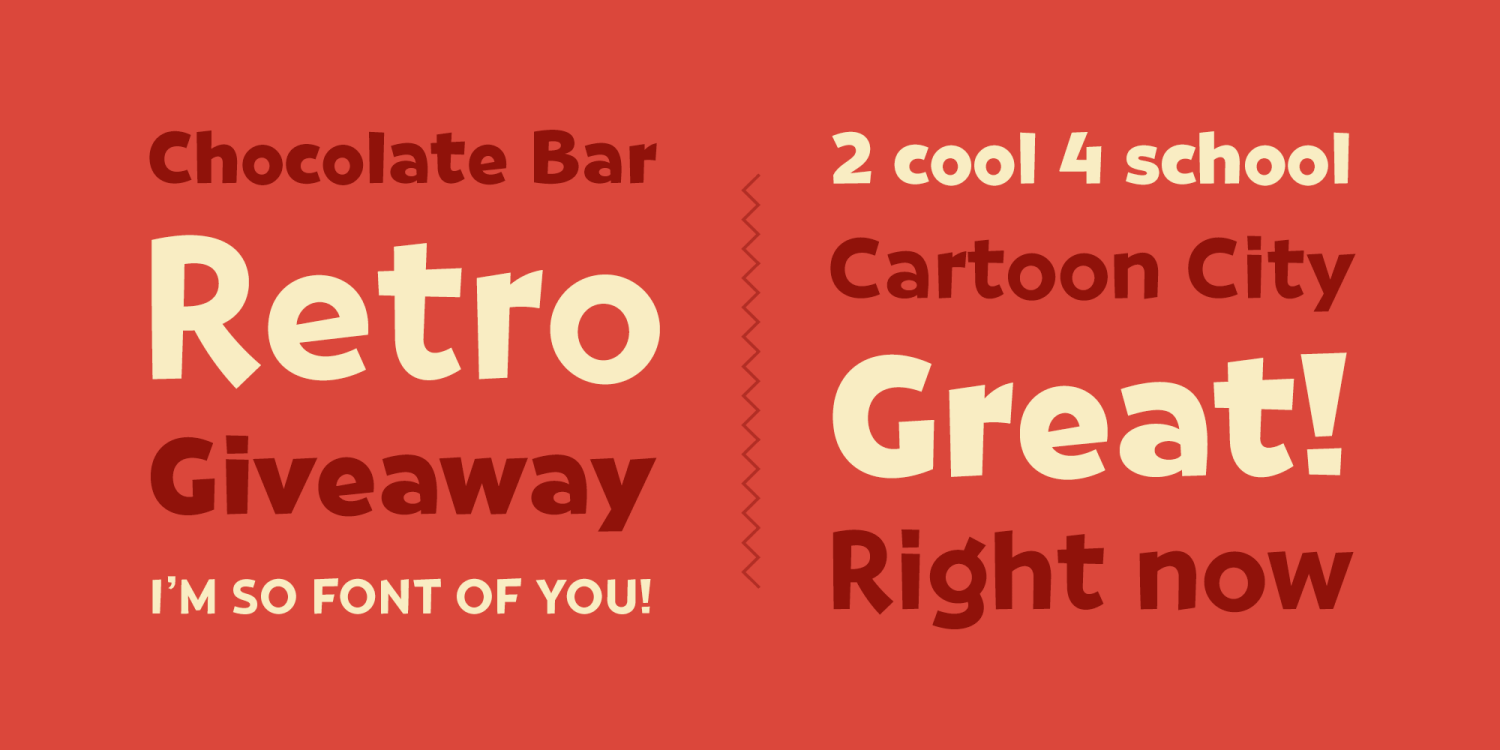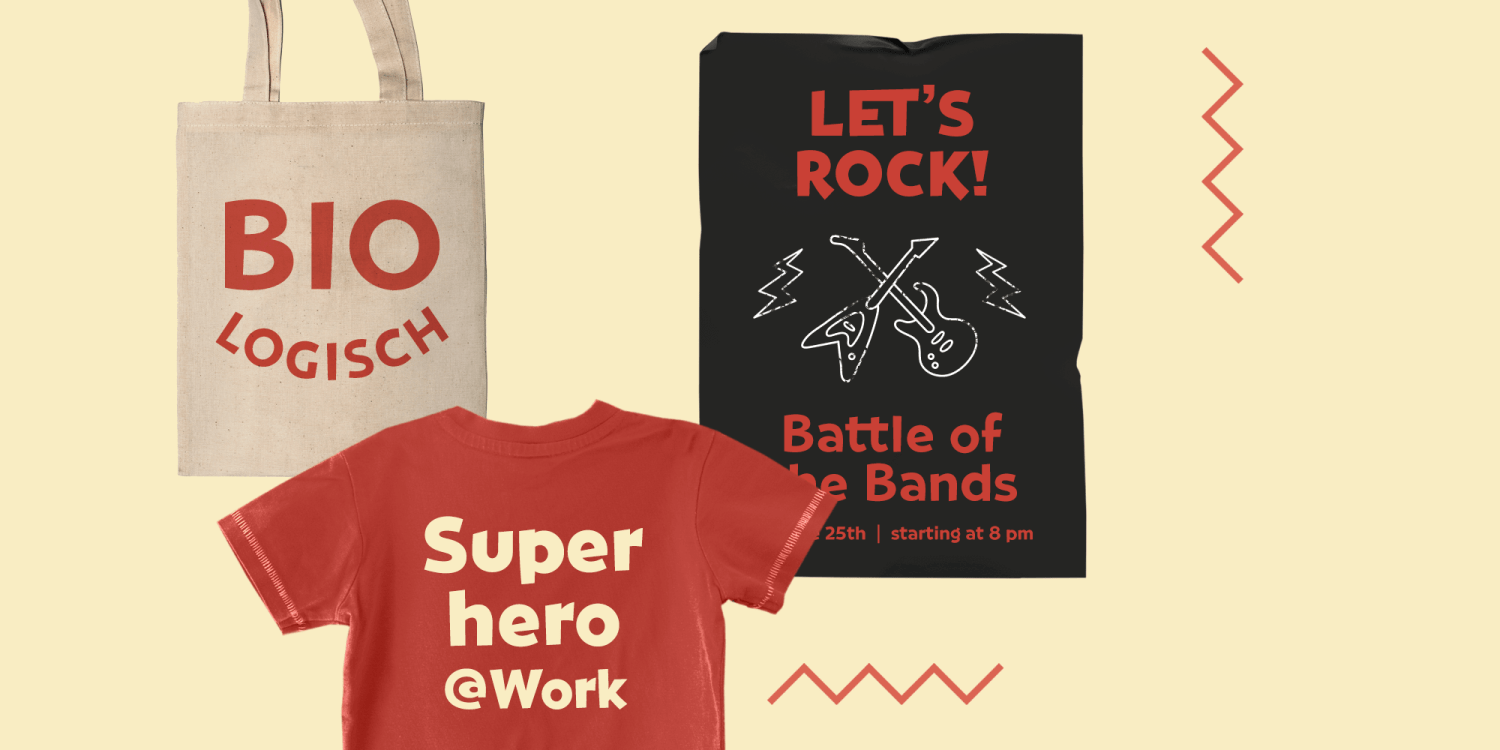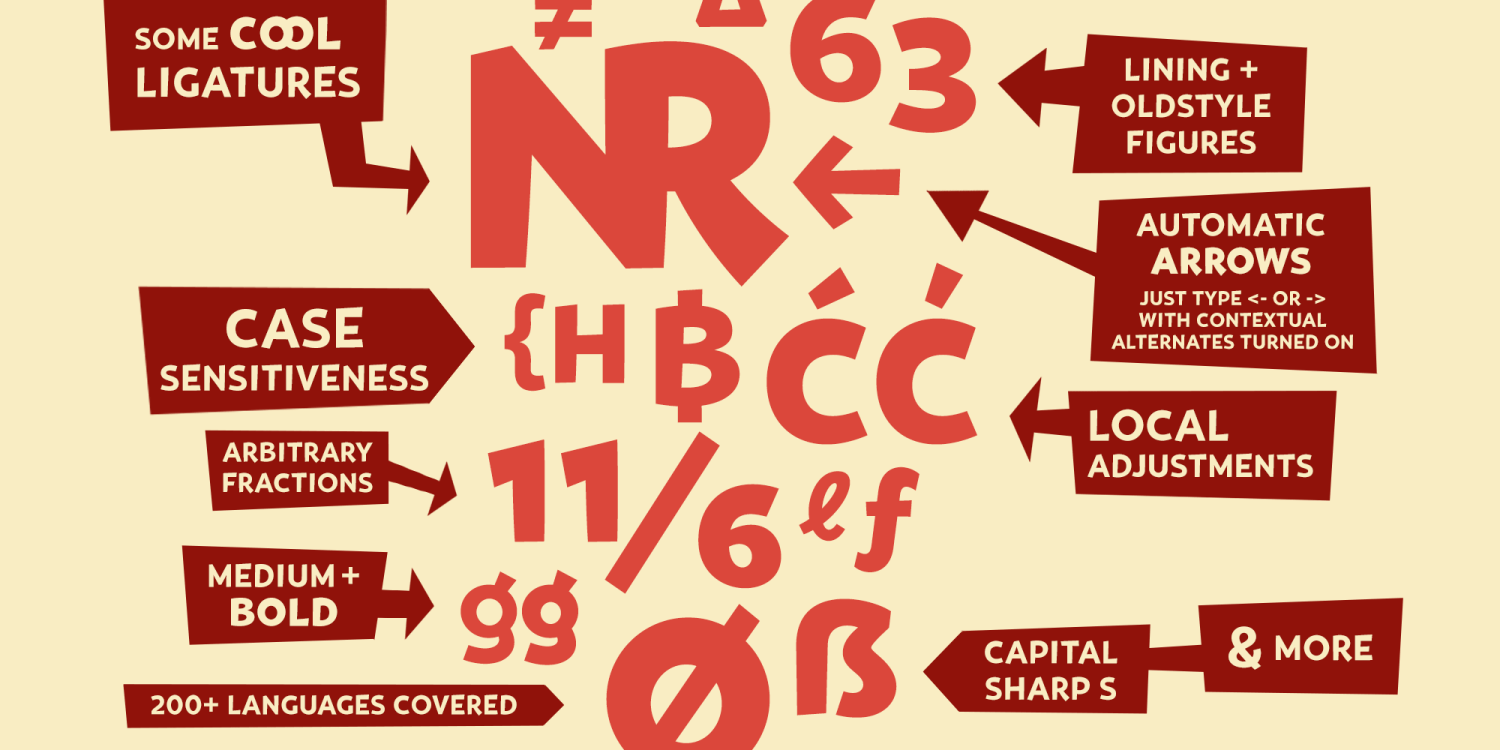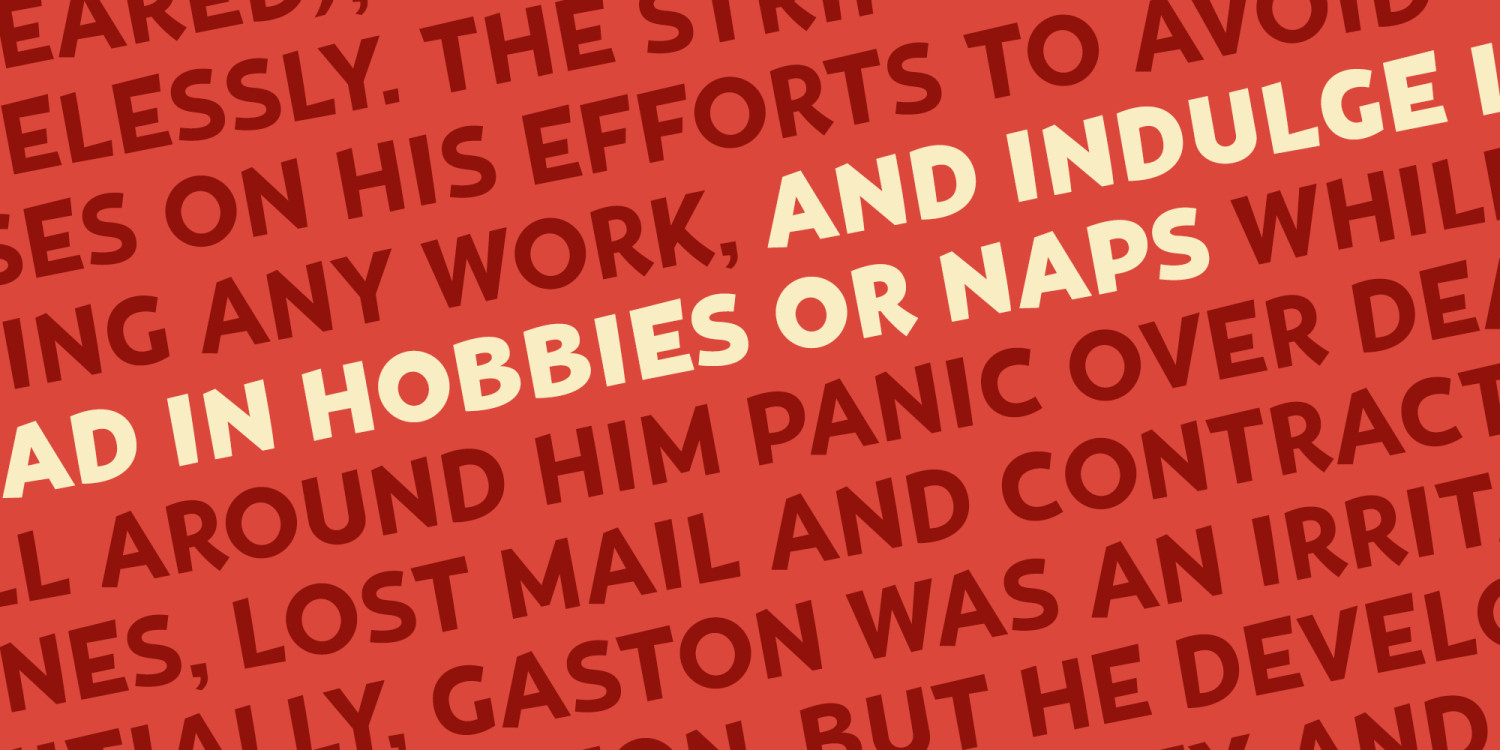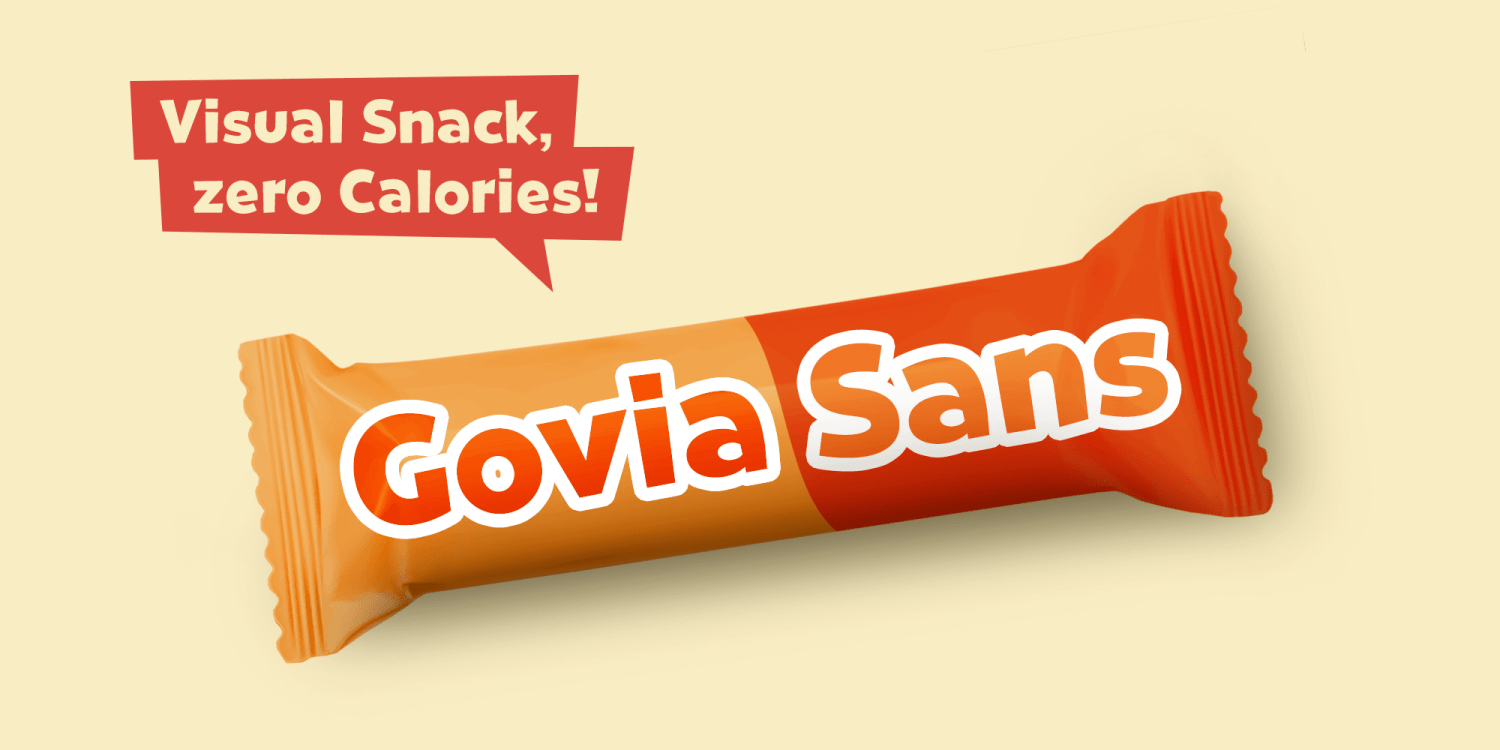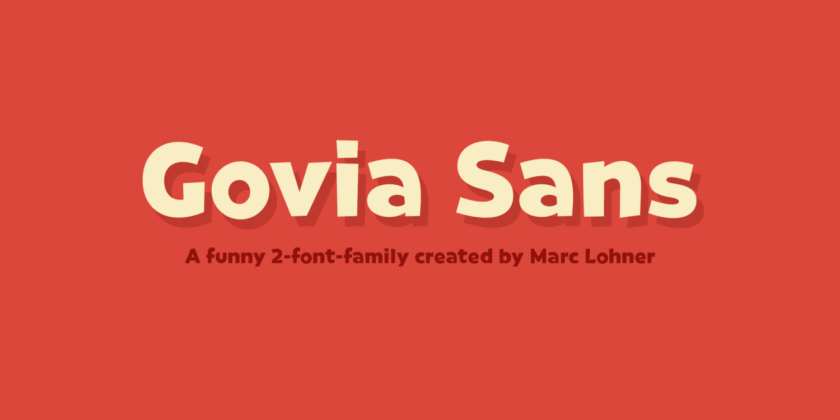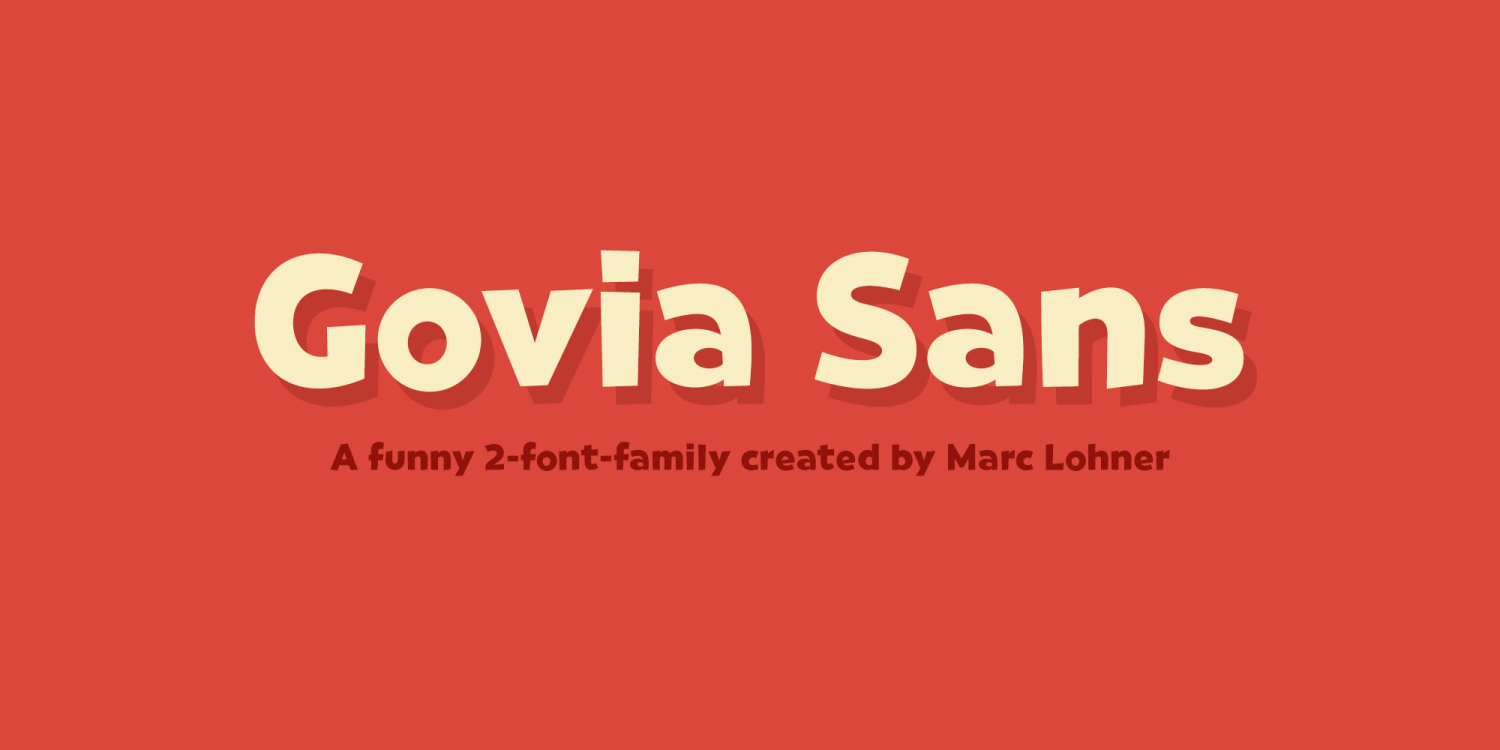
About Govia Sans
Let\’s have some fun! Govia Sans adds plenty of joy to any logo, layout or UI. Geometric shapes and a funny look come together in this font family ? thus, Govia Sans might be the perfect choice for toys, books, packaging designs, movie posters and many…